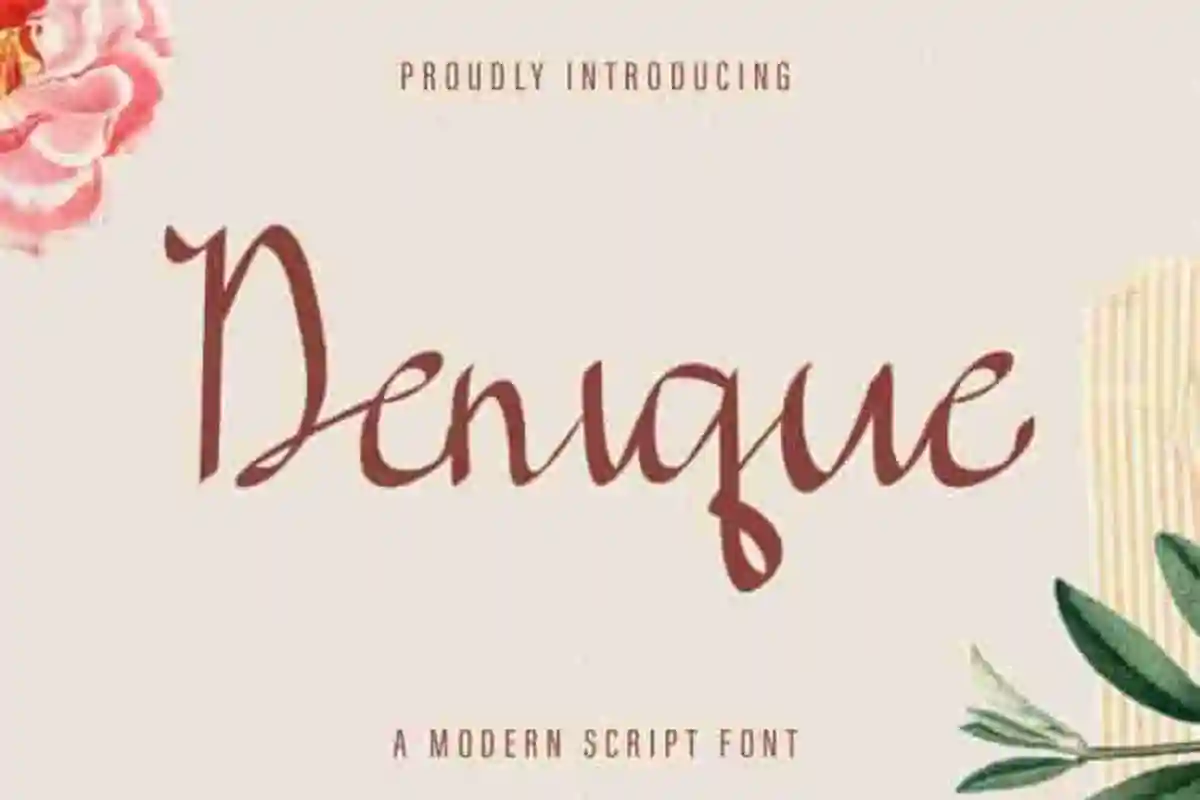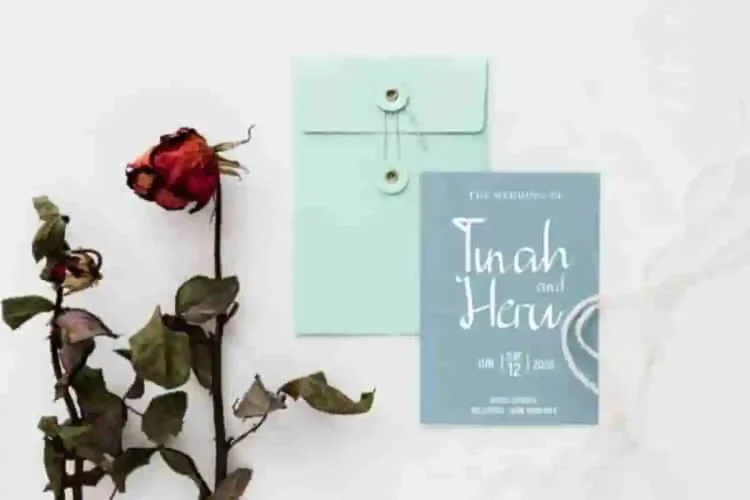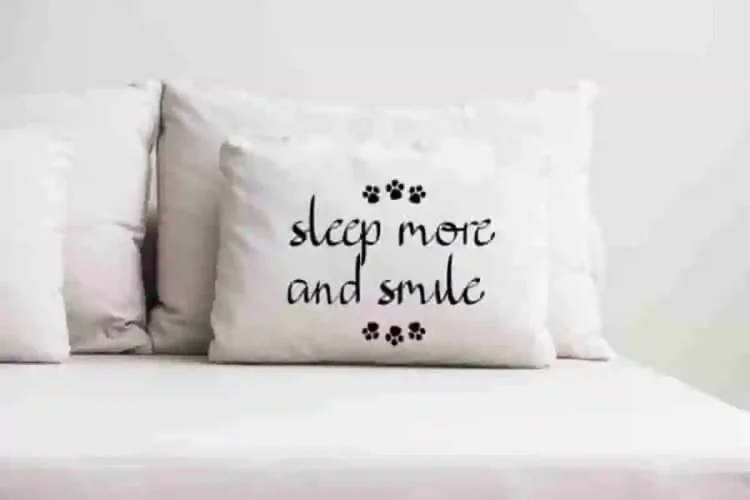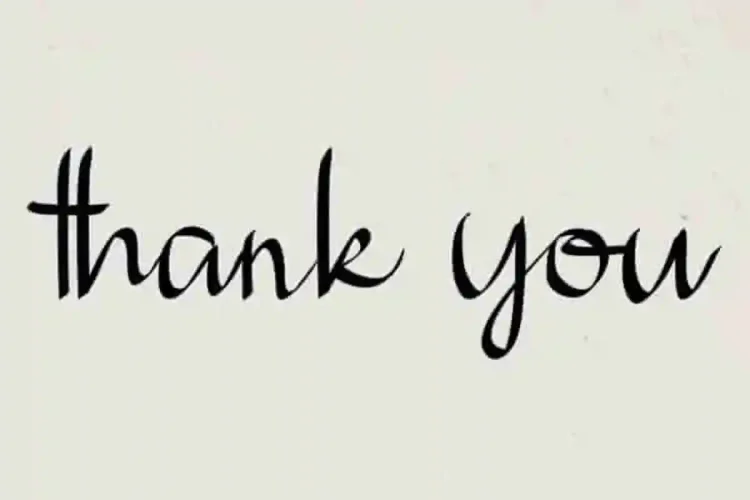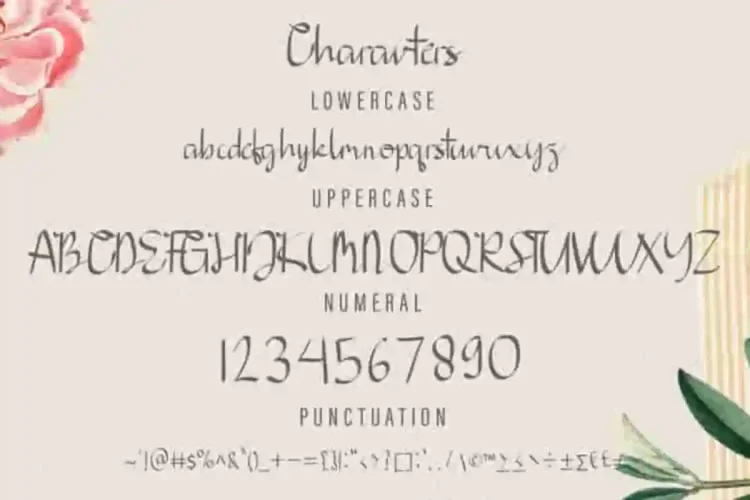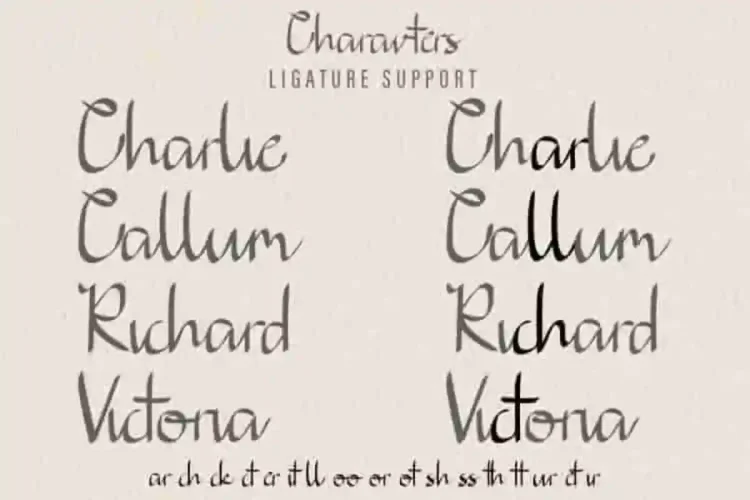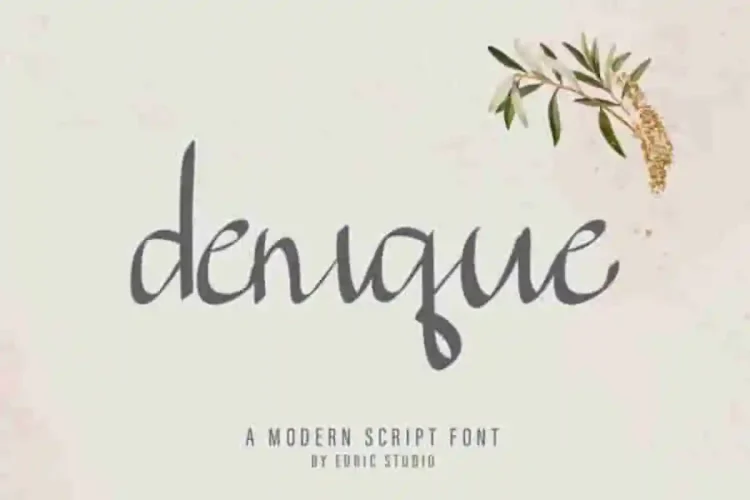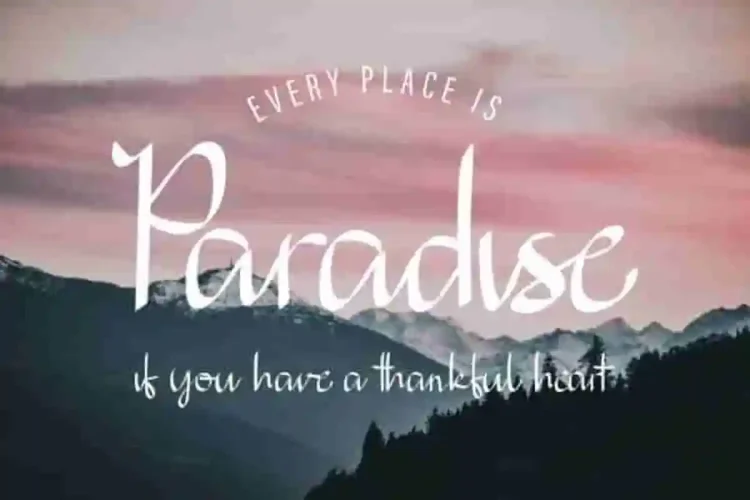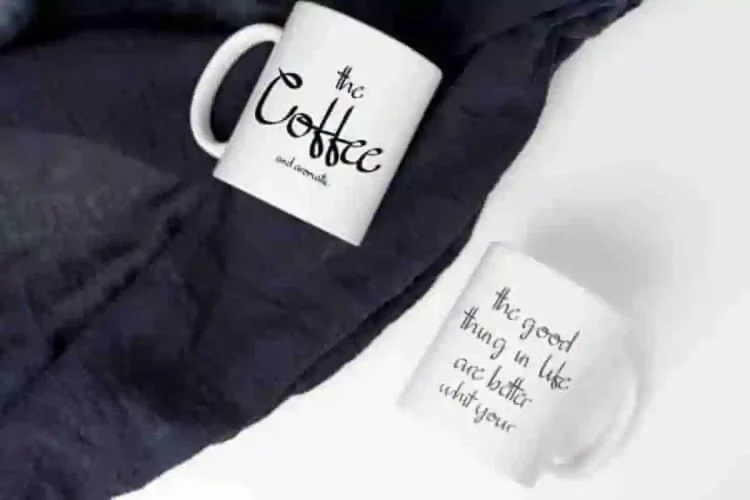
Denique Calligraphy Script Font
The newest font from our lovely artist : Denique Calligraphy Script Font
This is a Calligraphy font, handcrafted from our Studio here in Garut-Bandung, Indonesia. The artists/designers of this beautiful tyeface is Yasri and Sarah Suci.
Denique Calligraphy Script Font is an exclusive calligraphy script typeface with brush style. This font has a stunning characters set, perfectly managed with well spaced and kerning. The theme style of this font will elegant,  vintage, stylish, sophisticated and classic brush calligraphic style.
Denique Calligraphy Script Font will be great for any projects including : branding, logo, stationery, business card, signage, flyer, brochure etc. Almost all industries will be match for this typeface: wedding, events, real estate, architect, law firm, florist, gardening, makeup artist, travel, hotel, musician etc.